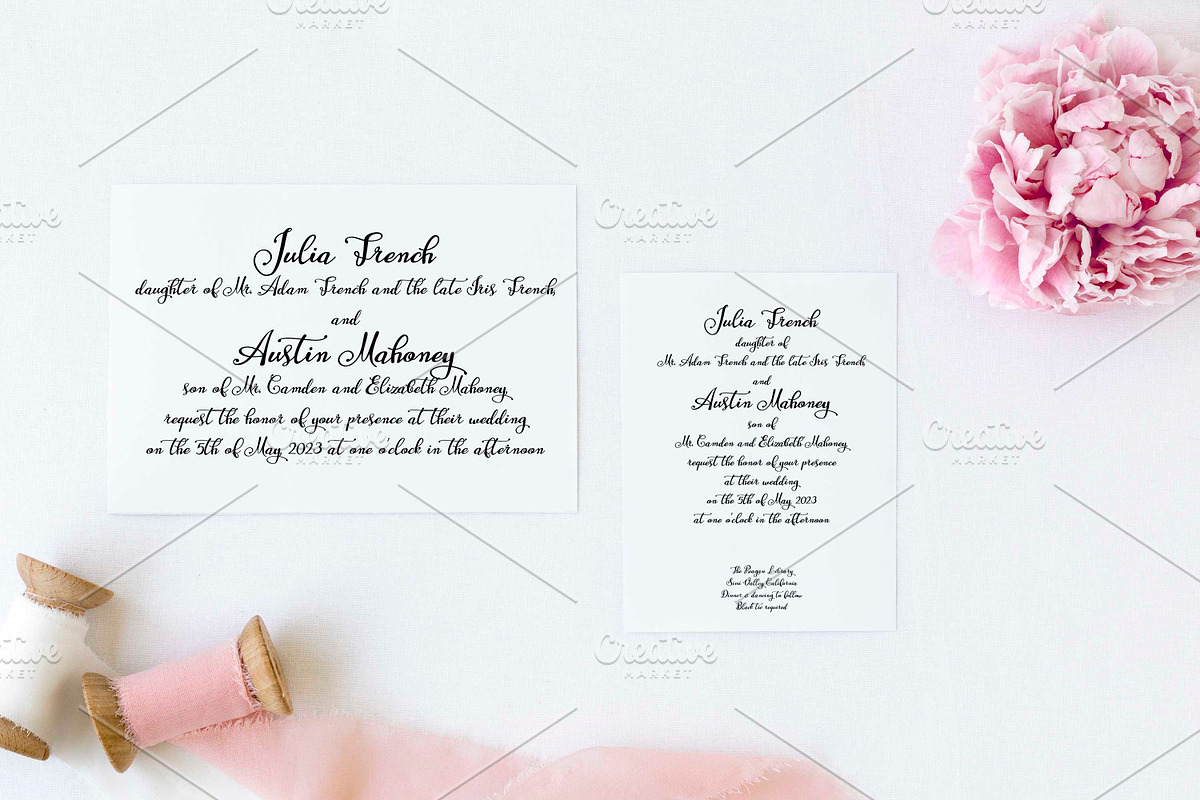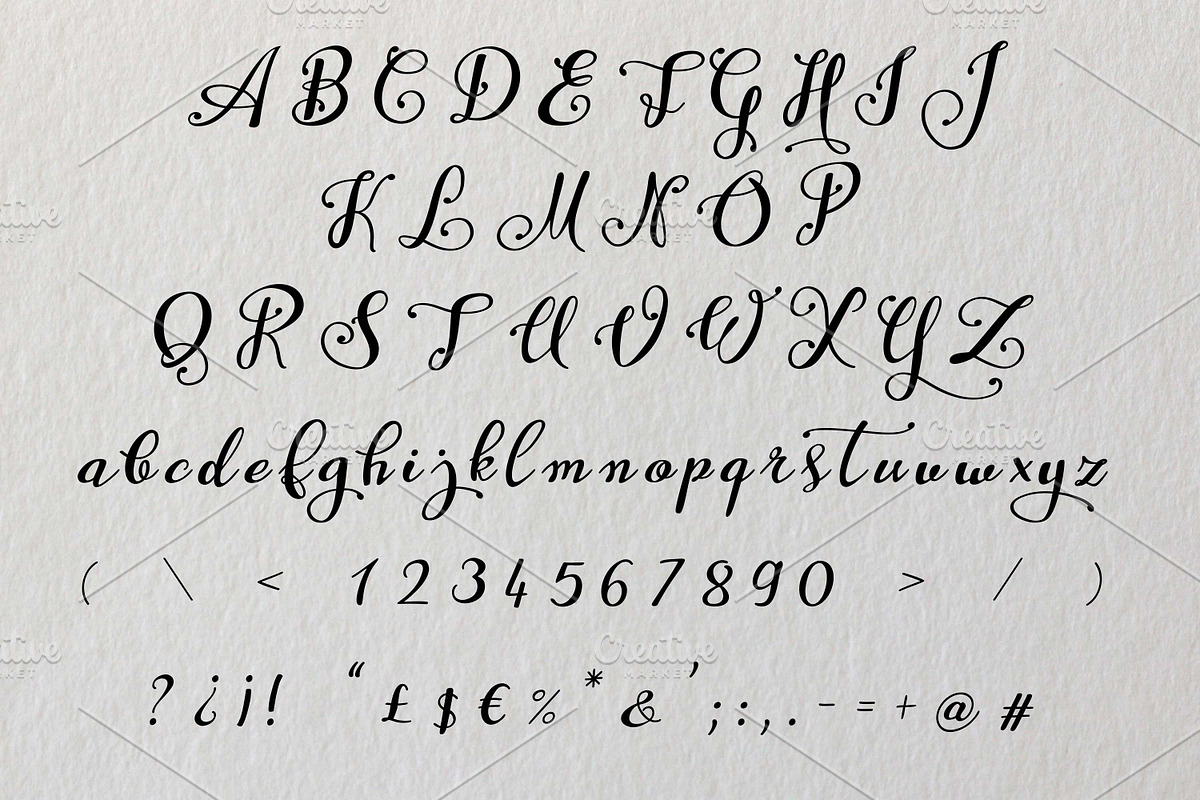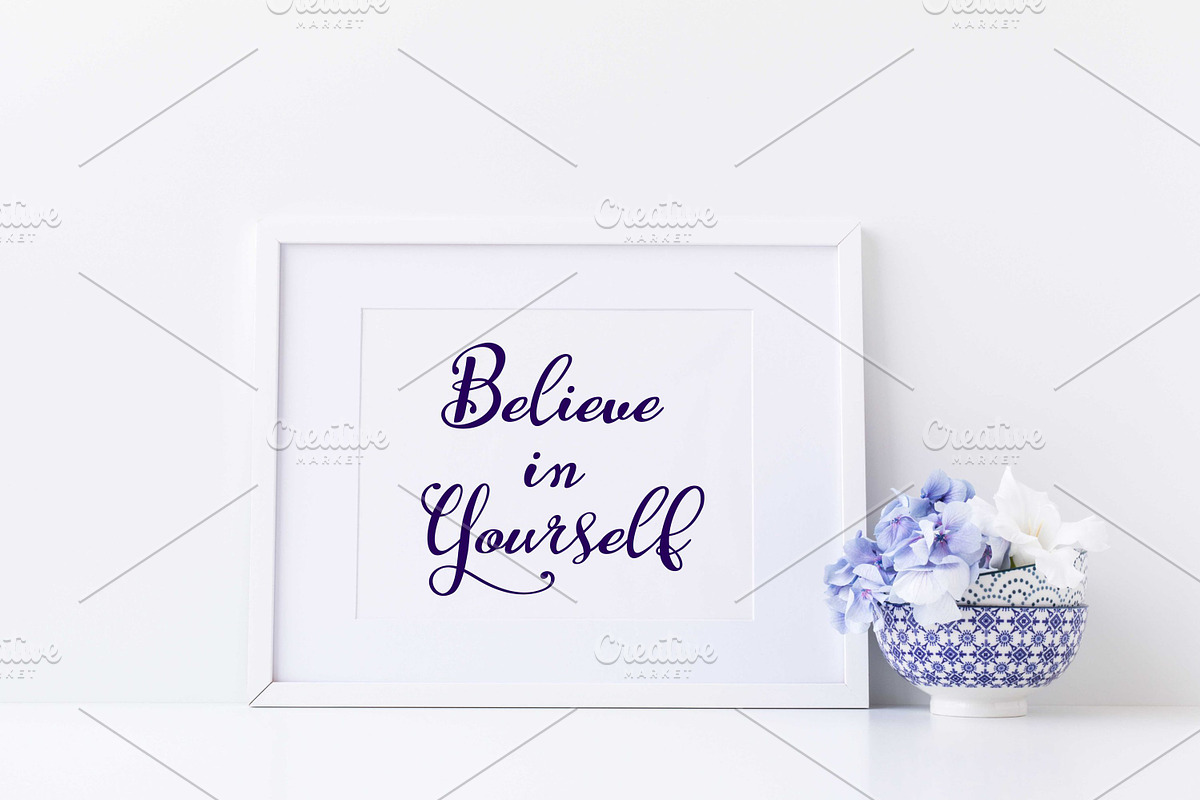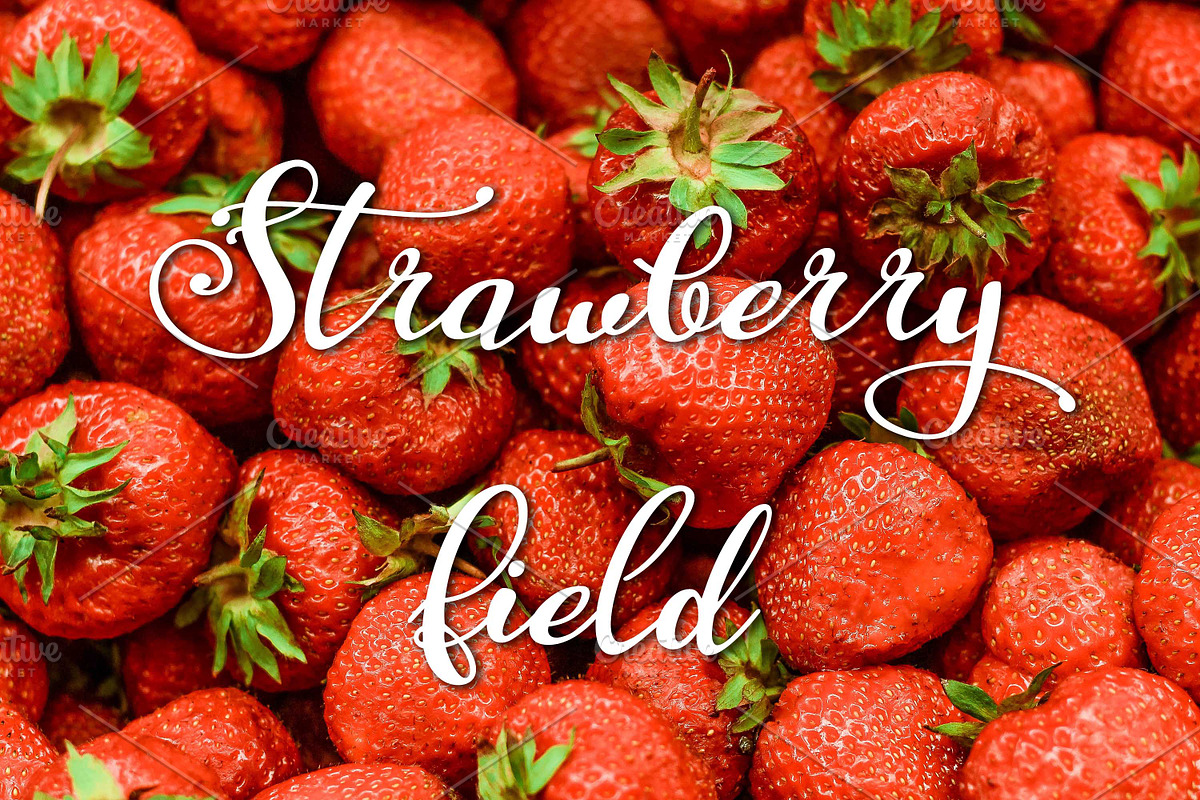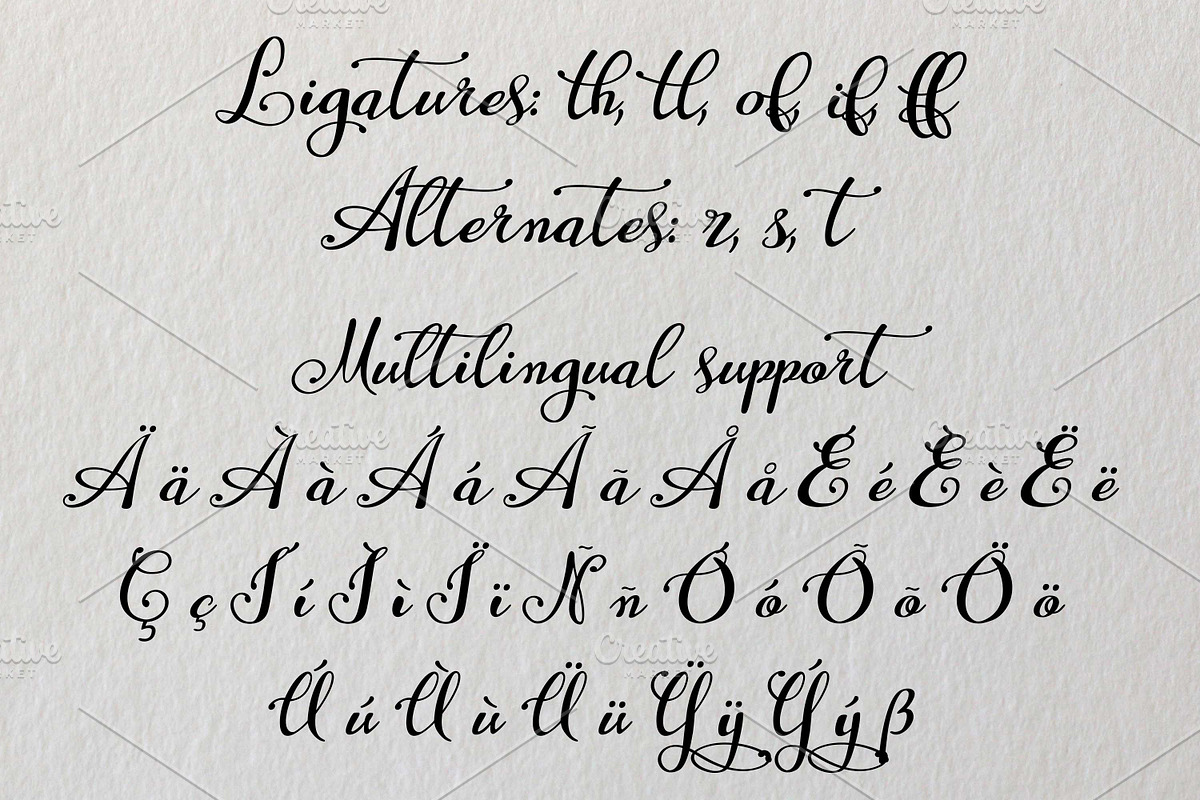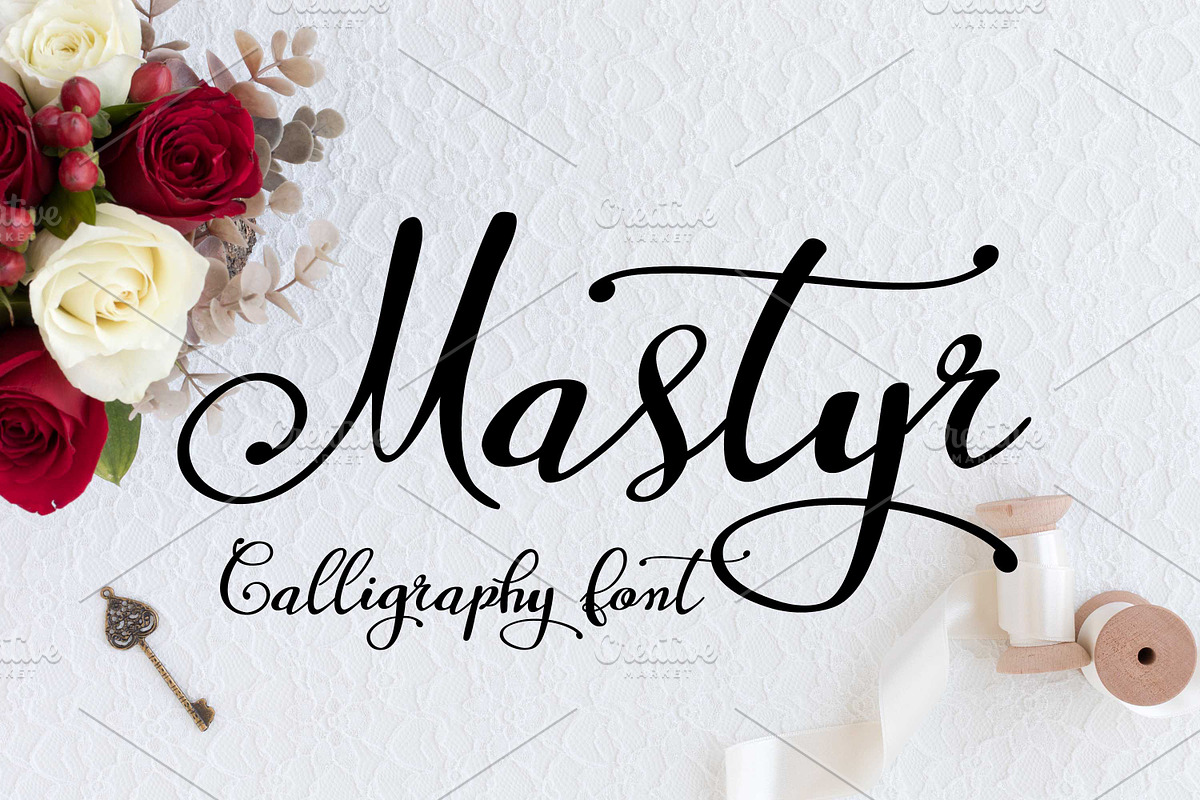
Mastyr
Mastyr is a modern, trendy and feminine handwritten font, that can be used for creative projects due to many features in it.
Warm and romantic, this font will turn each of your project ideas into real works of art.
It looks stunning on wedding invitations, thank you cards, quotes, greeting cards, logos, business cards and every other design which needs a handwritten touch.